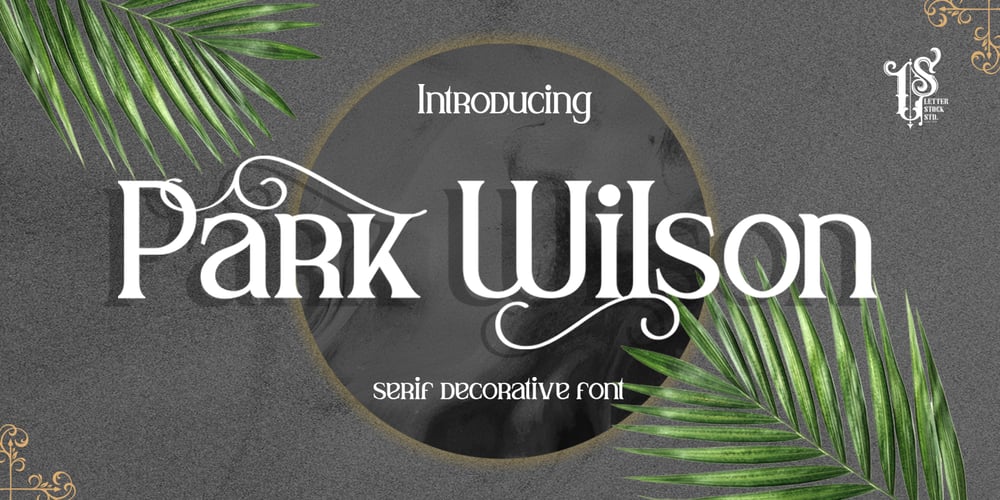
Parkwilson Font Family was designed by Studio LetterStock and published by LetterStock. Parkwilson contains 1 styles and family package options. Park WilsonThis pair was inspired by vintage design that i saw at coffe shop, it was crafted by hand specially to add natural handmade feeling in its brand identity than i make it clean with pentool.Opentype featuresPark Wilson font has 183 character set included.This font is very good for design logo, labels, packaging product, invitations, advertising and others. This font will make your design authentic, unique and good looking with modern calligraphy style.If you’re looking for unique serif decorative font, this item is a great choice to make your design looks great and unique.This fonts works with following languages:Afrikaans, Albanian, Asu, Basque, Bemba, Bena, Chiga, Cornish, Danish, English, Estonian, Filipino, Finnish, French, Friulian, Galician, German, Gusii, Indonesian, Irish, Italian, Kabuverdianu, Kalenjin, Kinyarwanda, Low German, Luo, Luxembourgish, Luyia, Machame, Makhuwa-Meetto, Makonde, Malagasy, Malay, Manx, Morisyen, North Ndebele, Norwegian Bokmål, Norwegian Nynorsk, Nyankole, Oromo, Portuguese, Romansh, Rombo, Rundi, Rwa, Samburu, Sango, Sangu, Scottish Gaelic, Sena, Shambala, Shona, Soga, Somali, Spanish, Swahili, Swedish, Swiss German, Taita, Teso, Vunjo, ZuluThank you for using this font.LS